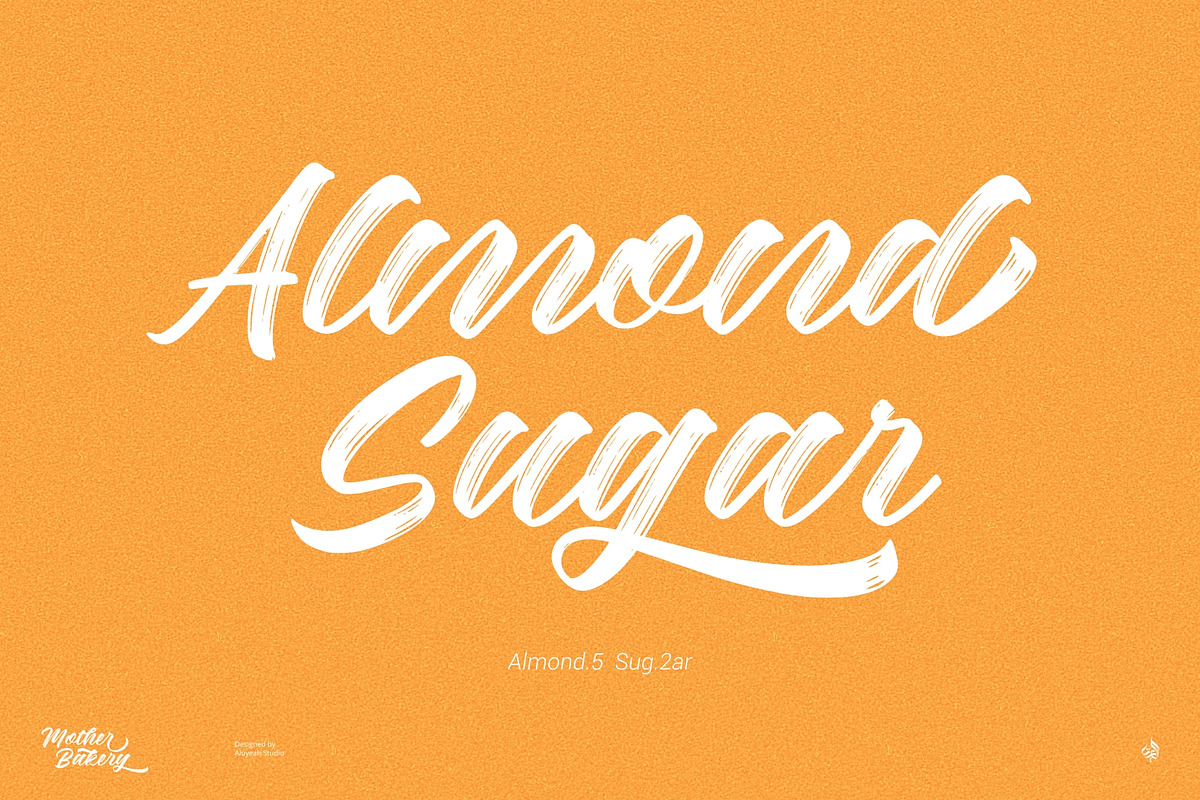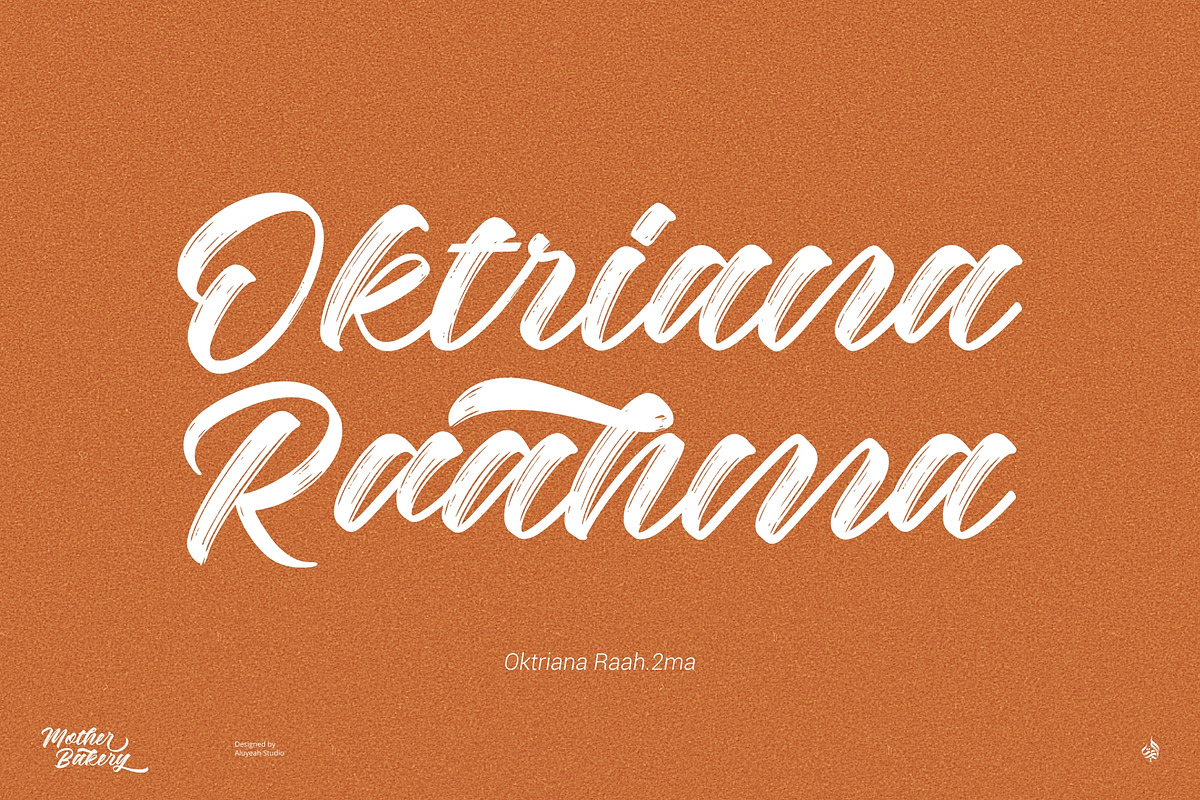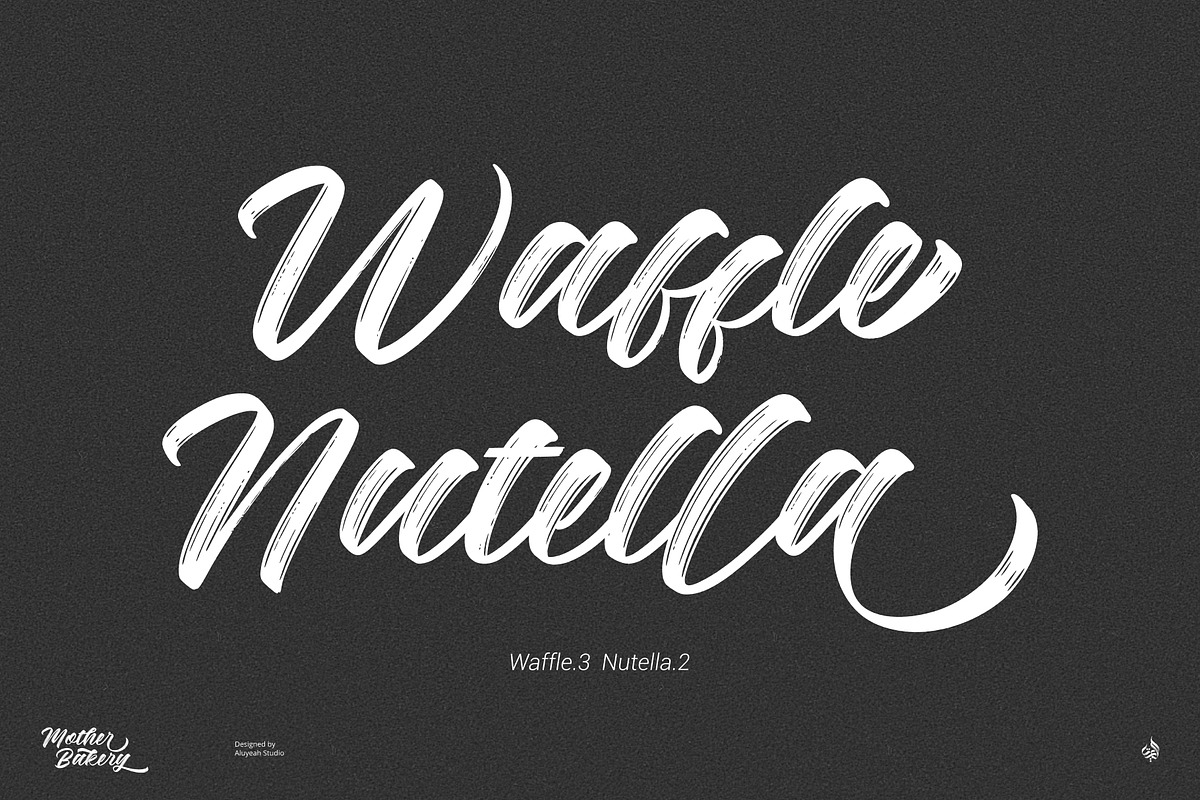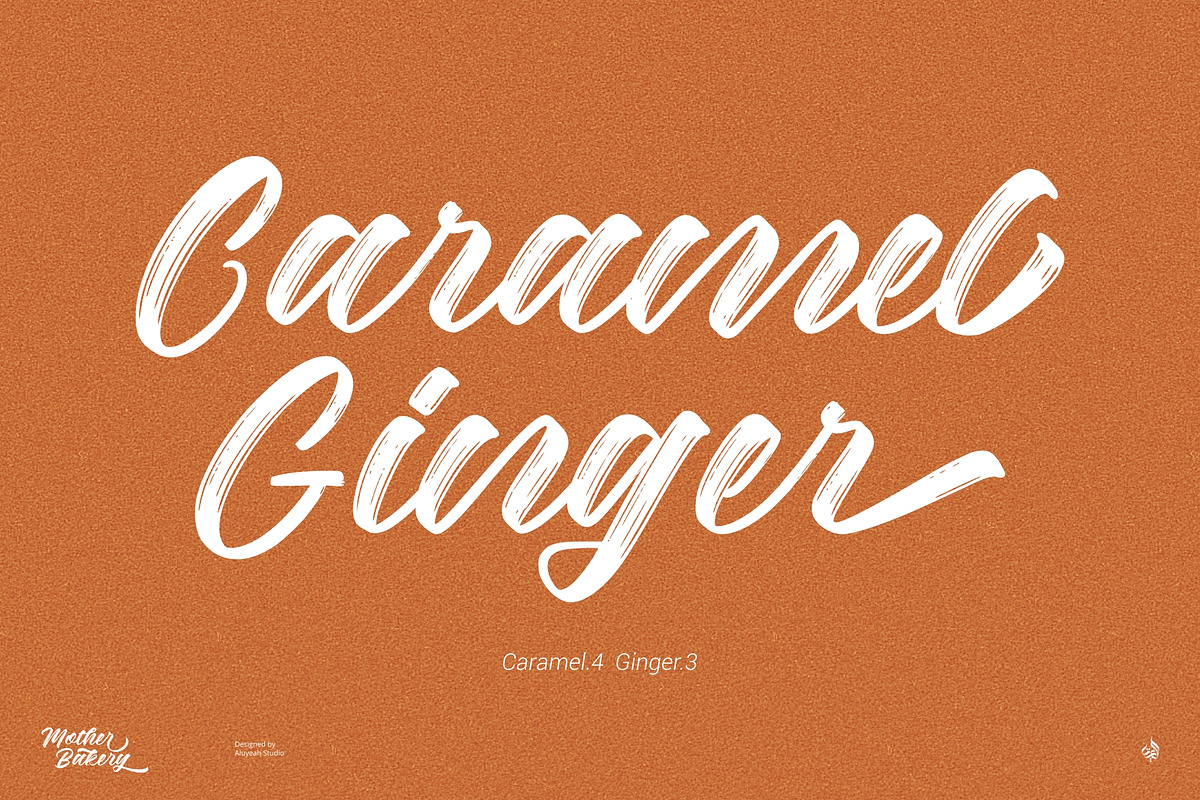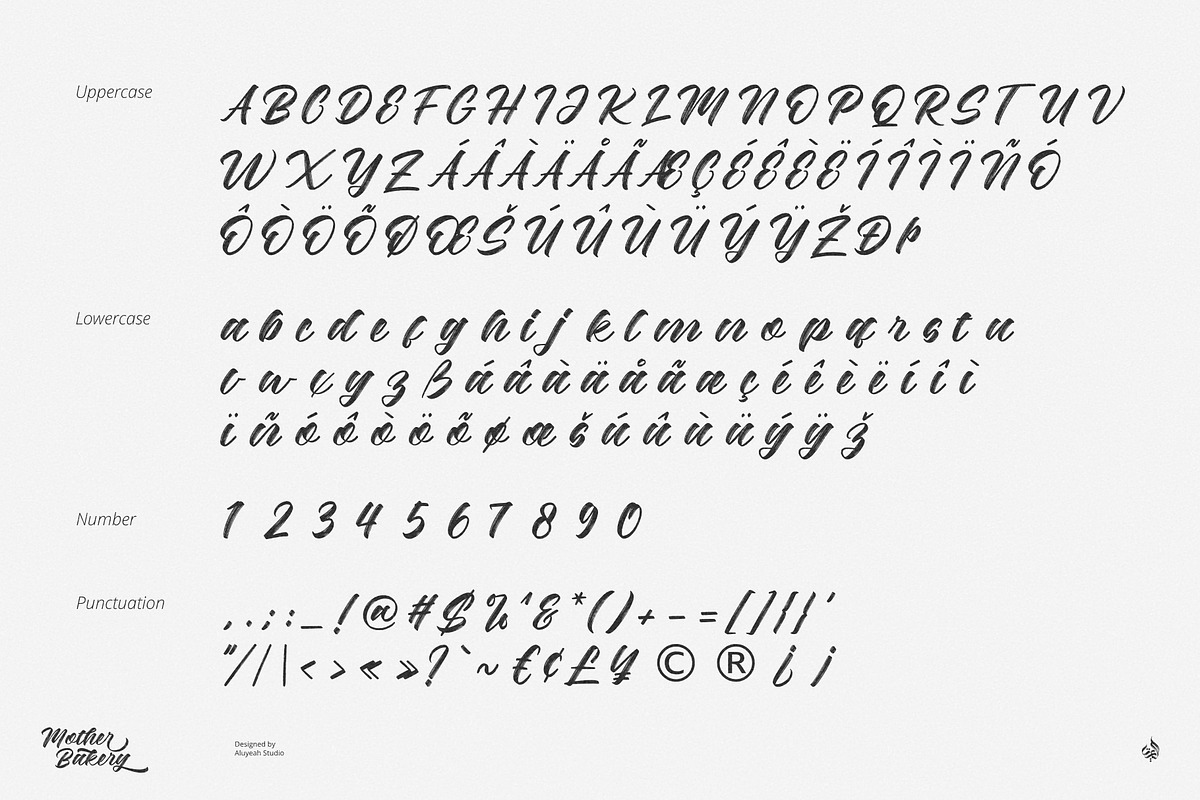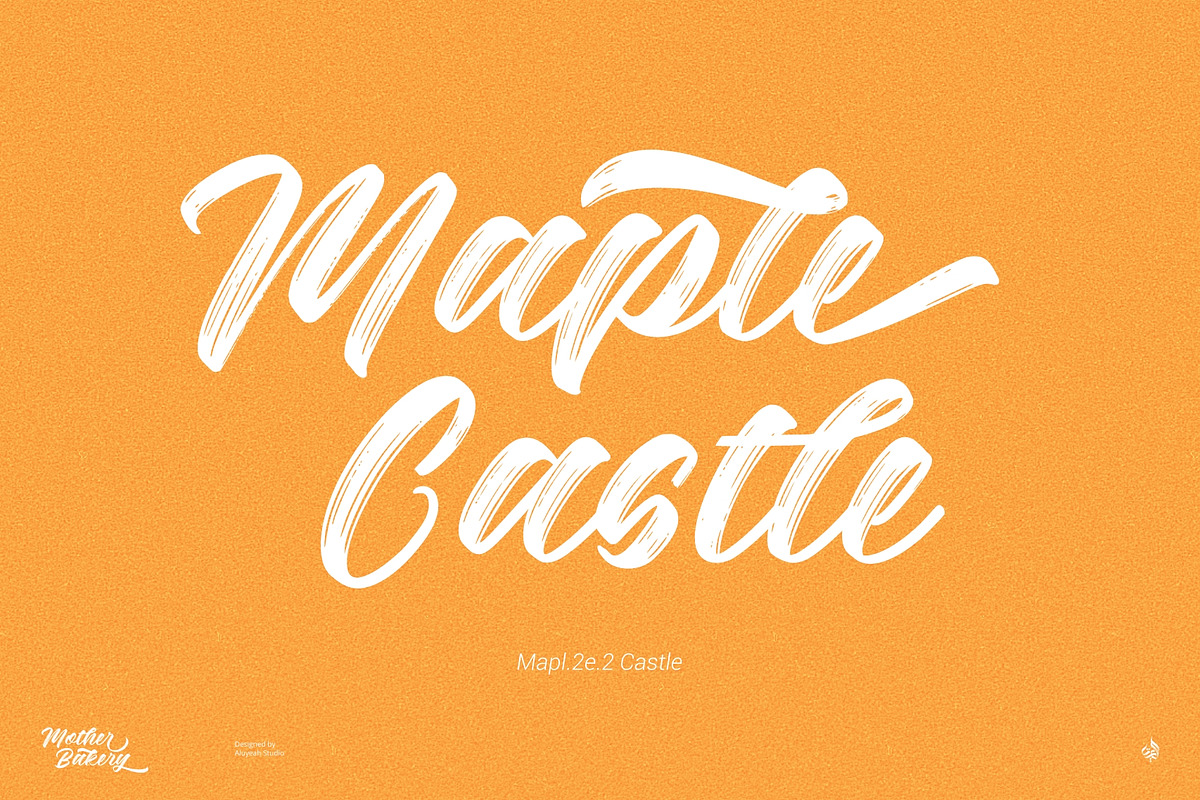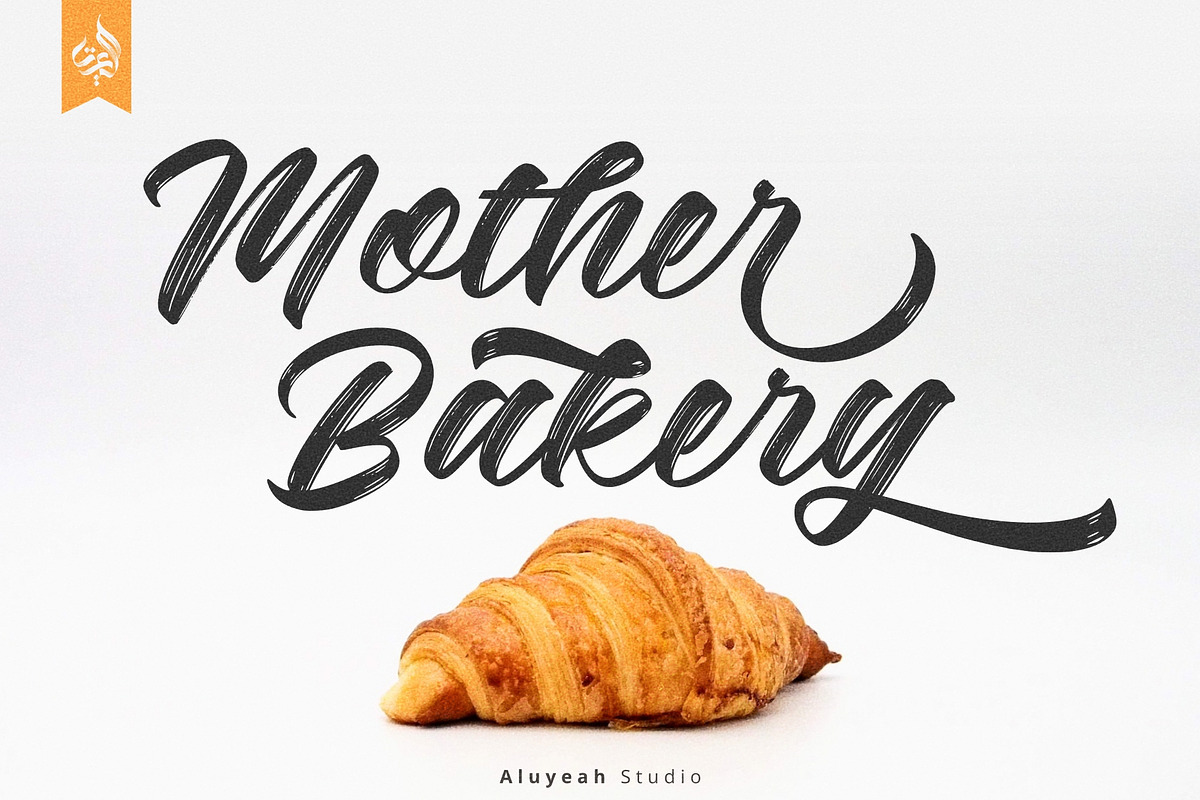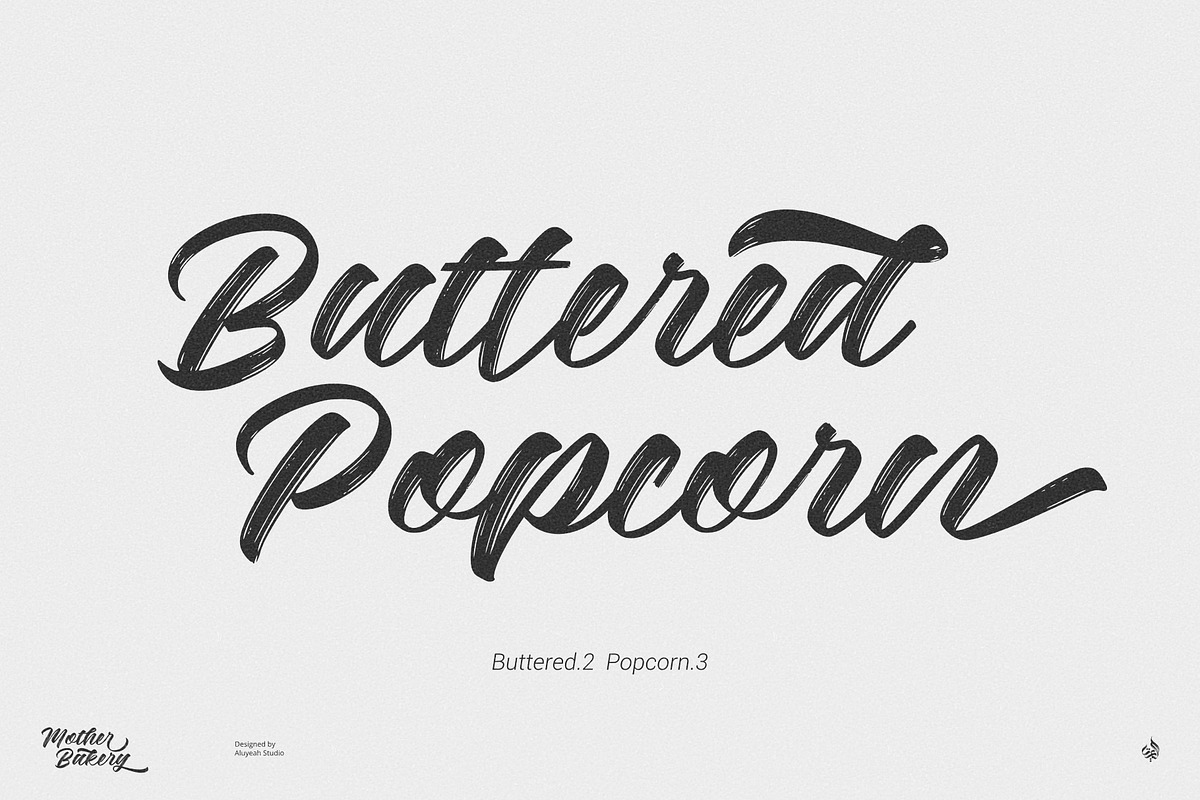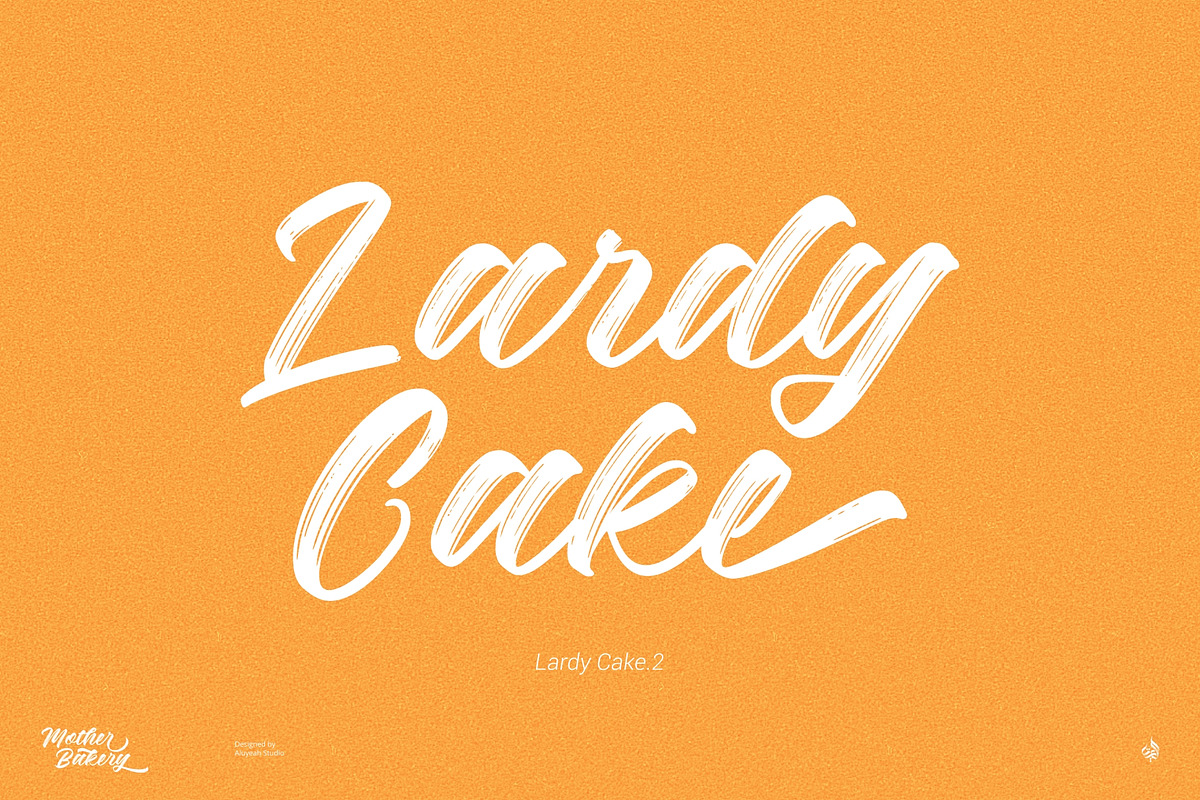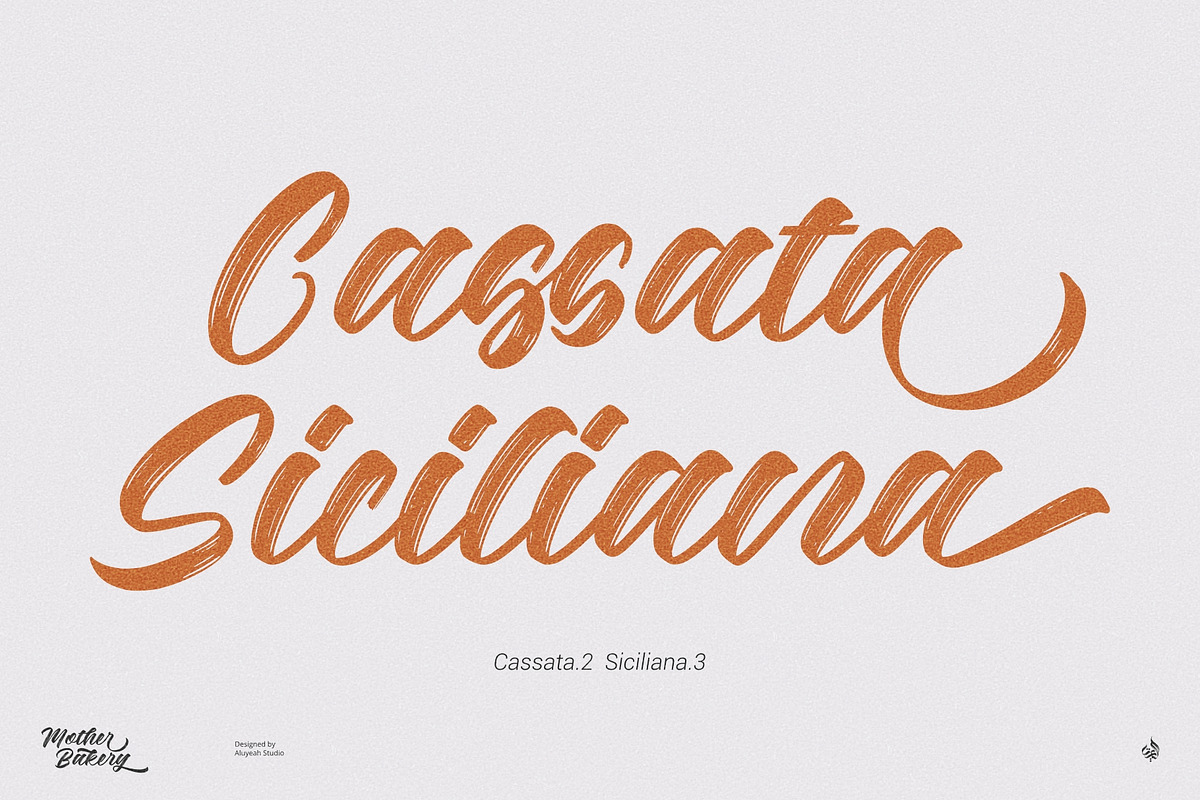
Mother Bakery
I named it Mother Bakery because I remember when Mom and I made cookies for our holiday preparations. On holidays, people usually visit their parents. So my mom and I make a looot of cookies. My mom was fussy back then, but full of warmth and love. Long story short, because of the pandemic, my brothers, sisters, and nephews couldn't visit, and in the end many cakes were moldy.
Mother Bakery, a handwriting inspired by the warm and fussy nature of a mother baking cakes for her children and grandchildren. With a bold style but with beautiful curves, Mother Bakery gives the impression of being firm but beautiful, fussy and fierce but full of love.
It can be applied to many areas of design. Coming with 100+ stunning and super easy to use alternates and ligatures. Very suitable for packaging, apps, magazine, headline, website, ads and all type of design project you have.
- Super Easy to Use alternates - You can easily call alternates using special combination like a.2 k.3 b.4 th cc etc.
To get results like the preview just type Mother.2 Bak.7ery.2